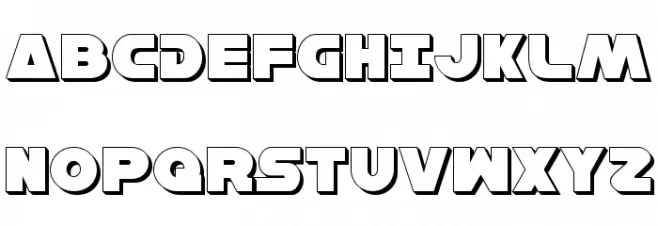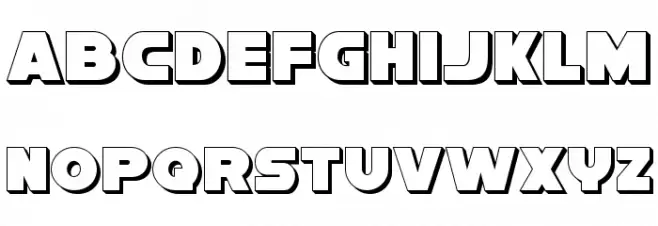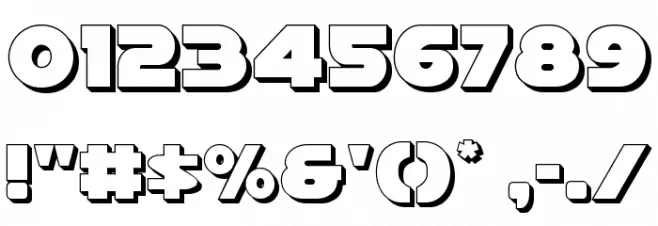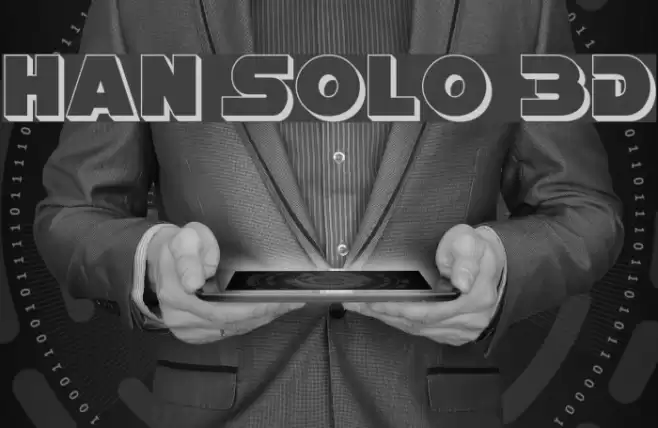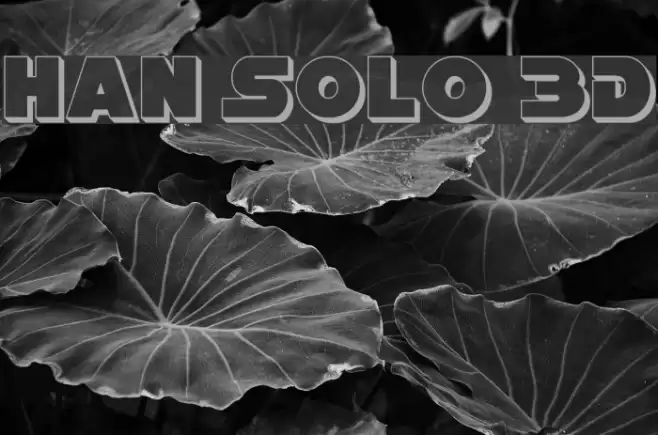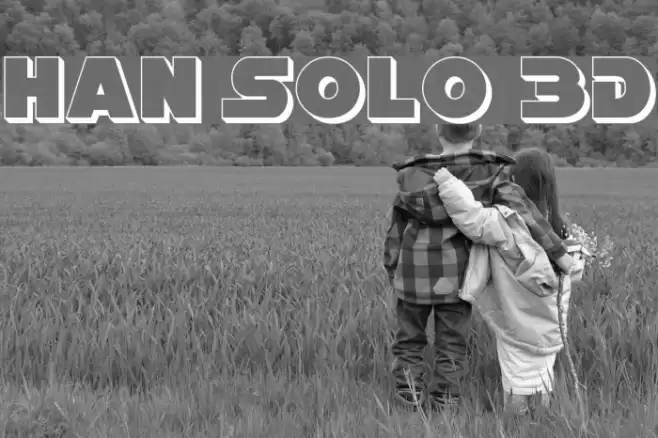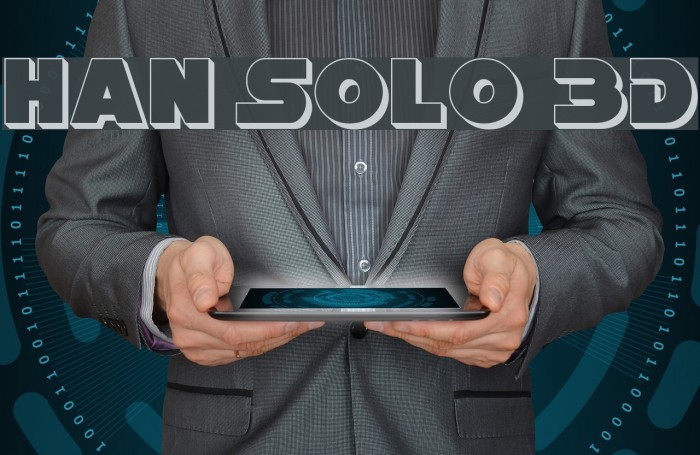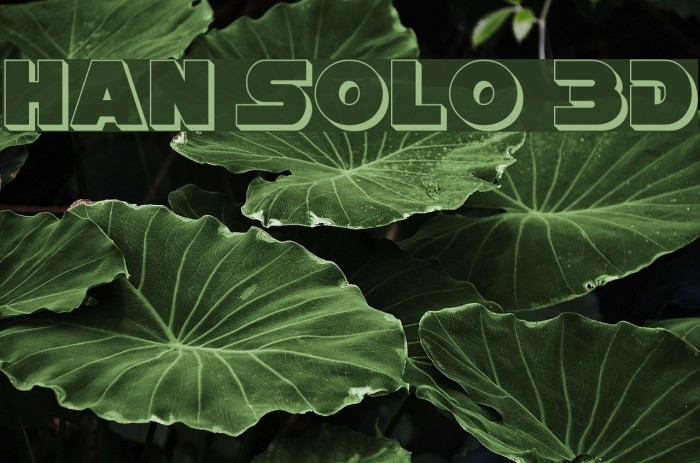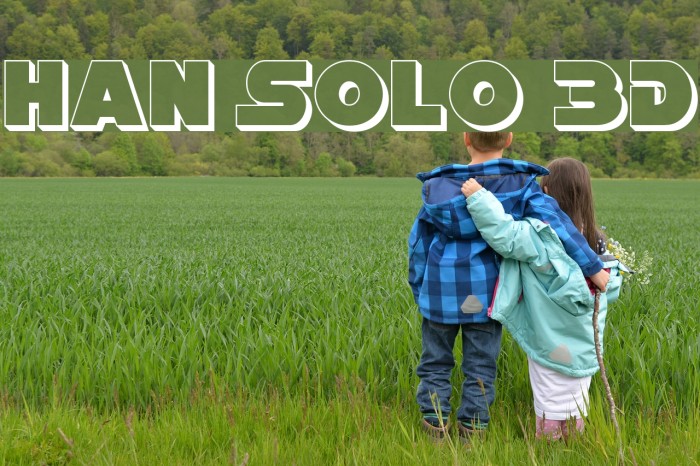
Han Solo 3D
This font features a bold, three-dimensional style with a strong, futuristic aesthetic. The characters are uppercase and have a blocky, geometric design with a shadow effect that gives them depth. The font is highly legible and makes a striking visual impact, suitable for attention-grabbing headlines or titles. The numbers and special characters maintain the same bold, 3D style, ensuring consistency across all text elements. The overall design is modern and dynamic, making it ideal for projects that require a sense of boldness and innovation.
A bold, 3D geometric font with a futuristic and dynamic style.
- Proposed Projects: Ideal for sci-fi themed posters, video game titles, movie promotions, and branding that requires a modern, bold look.
- Contrast: High